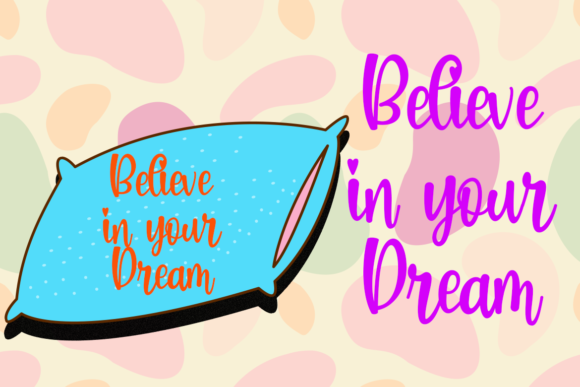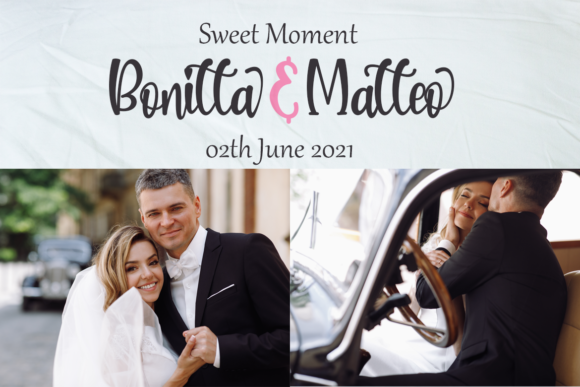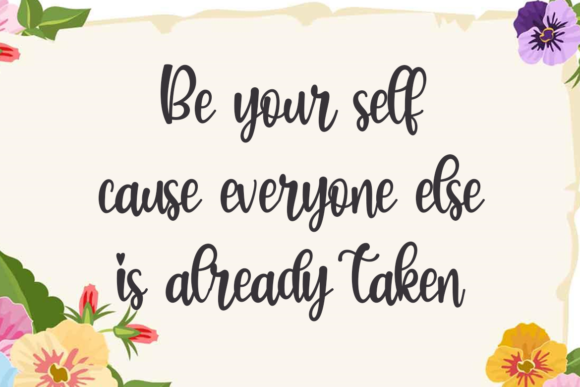
About Kamuflase Font
Kamuflase is a beautiful and quirky handwritten font that adds a touch of beauty and playfulness to your designs. With its unique and whimsical style, Kamuflase is perfect for a wide range of design projects, particularly those that require a fun and creative approach.
The beauty of Kamuflase lies in its ability to bring a sense of whimsy and charm to your designs. The letters have a playful and irregular appearance, giving them a hand-drawn and organic feel. This adds a unique character and personality to your designs, making them stand out and capturing the attention of viewers.
One of the great strengths of Kamuflase is its versatility. It can be used in various design contexts, making it suitable for cartoon-related designs, children’s games, quotes, titles, brand names, book covers, posters, and more. Whether you’re creating designs for a children’s book, a playful brand identity, or a whimsical poster, Kamuflase has the ability to bring your ideas to life.
The quirky nature of Kamuflase allows it to inject a sense of fun and playfulness into your designs. It breaks away from traditional and formal typography, embracing irregularities and imperfections to create a unique visual experience. This font encourages creativity and experimentation, inviting you to explore different ways of using it to add a touch of beauty and whimsy to your creations.
In addition to its visual appeal, Kamuflase is also user-friendly and easy to work with. It maintains legibility even with its quirky style, ensuring that your message is effectively communicated. The font is available in a range of weights and styles, providing flexibility and options to suit your specific design needs.
Overall, Kamuflase is a beautiful and quirky handwritten font that brings a touch of beauty and playfulness to your designs. Its unique style and versatility make it a great choice for a wide range of design projects, especially those that require a fun and creative approach. Embrace the charm of Kamuflase and let it add a whimsical and beautiful touch to your creations.